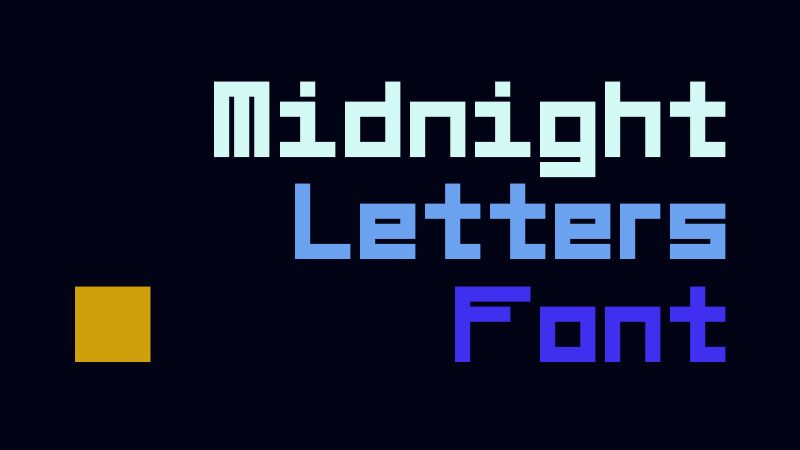
Midnight Letters
Midnight Letters font by GGBotNet is a free techno display font with an expanded width. Its modern look follows from the elongated letter shapes, intelligent characters’ decision, and uniform bodies. This clean geometric typeface mixes up a futuristic appearance and a sans-serif style.
The professional Midnight Letters can find itself in many different contexts such as businesses, product packaging, advertisement purposes, electronic device branding, printed & digital magazines, website headings, TV channels names & logos. Each uppercase character as an illustration is perfect for learning purposes or decorating walls within homes or commercial stores.